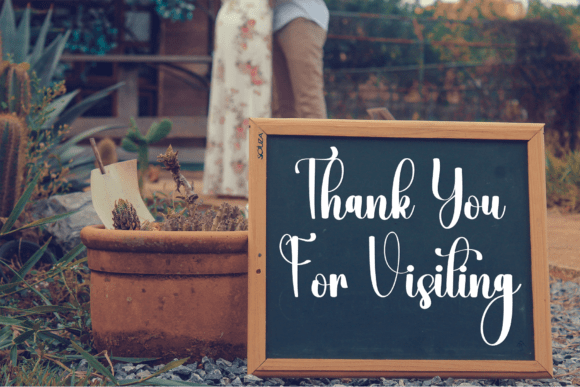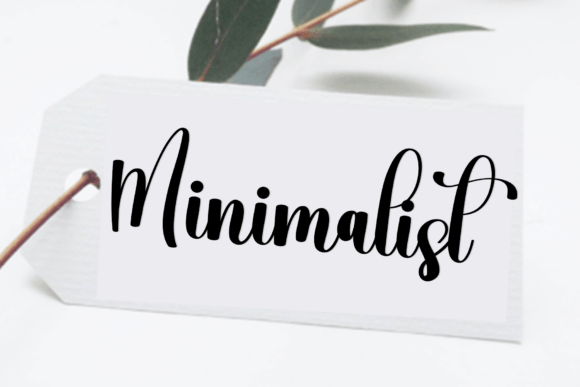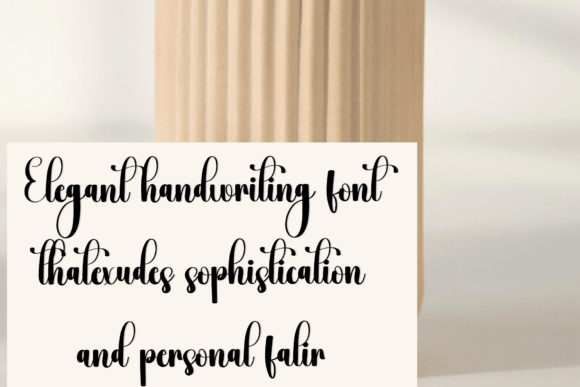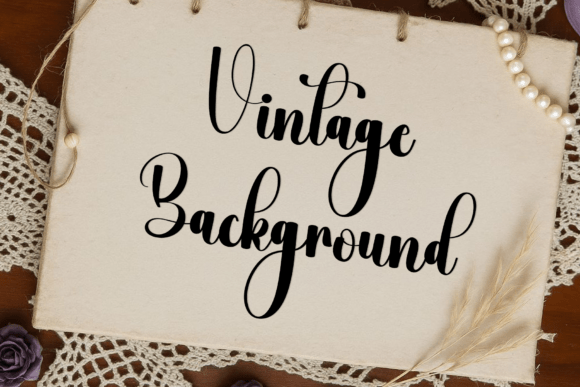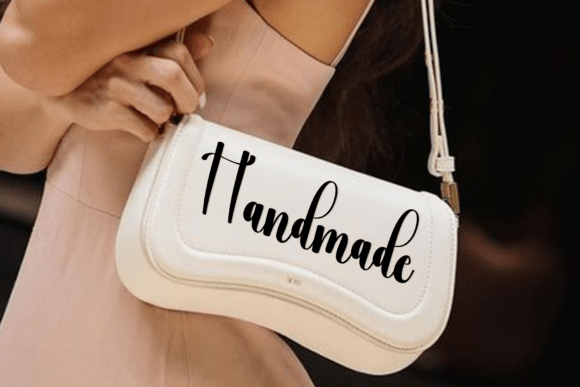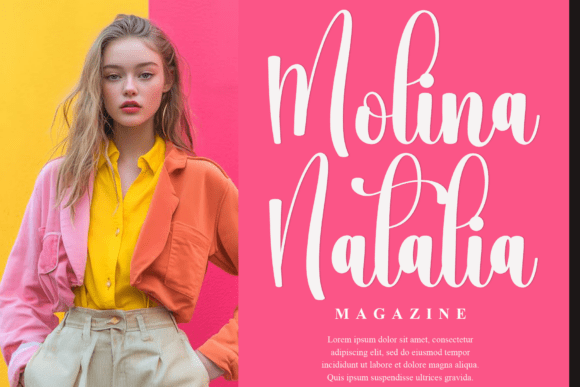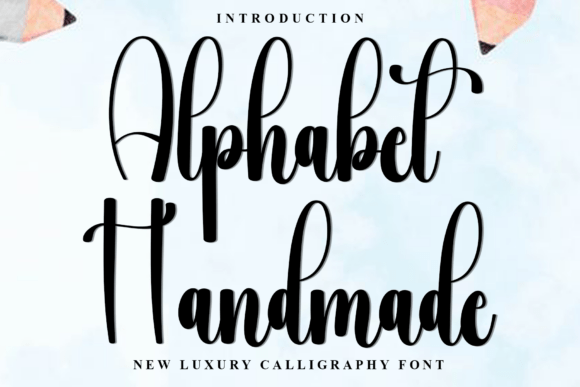
The Charm of Alphabet Handmade Font: A Designer’s Delight
I still remember the frustration of scrolling through font after font, searching for the perfect fit for a client’s luxury branding project. The brief was simple: create a sophisticated, high-end look that exuded elegance and refinement. But, as I sifted through my font library, I found myself stuck in a sea of sans-serifs and digitized serif fonts. That’s when I stumbled upon Alphabet Handmade font – a game-changer in the world of typography.
What Makes Alphabet Handmade Font So Special?
Alphabet Handmade font is a “new luxury calligraphy” font that celebrates the beauty of imperfection. Each letterform is carefully crafted to resemble hand-inked characters, complete with subtle irregularities that give the text a sense of life and uniqueness. This font is perfect for designers who want to break away from the corporate look and inject a more artistic, bohemian spirit into their work.
The Benefits of Alphabet Handmade Font
• ✨ Unique, hand-crafted letterforms that add a touch of elegance to any design
• ✅ Perfect for luxury editorial work, independent film posters, and high-end fashion branding
• 💫 Works exceptionally well in high-contrast color palettes, such as black ink on cream paper
• 🎨 Can be paired with a stark, brutalist sans-serif for a contemporary edge
• ✨ The font’s unique character and charm, which add a touch of sophistication to any design
• ✅ The range of OpenType features, including glyphs and stylistic alternates, which offer endless creative possibilities
• 💫 The font’s versatility, which makes it suitable for a wide range of design applications
• ⚠️ Some users may find the font’s irregularities too pronounced, which can be distracting in certain contexts
• 🤔 The font may not be suitable for body text, as its unique character is best showcased in headlines or titles
The Backstory Behind Alphabet Handmade Font
According to the font’s creators, Alphabet Handmade font was inspired by the art of traditional calligraphy. The designers wanted to capture the essence of hand-inked characters, while still making the font suitable for modern design applications. The result is a font that feels both timeless and contemporary.
What is the best way to pair Alphabet Handmade font with other fonts? A stark, brutalist sans-serif font provides a beautiful contrast to Alphabet Handmade font’s elegant, script feel.
Can I use Alphabet Handmade font for body text? While Alphabet Handmade font is best suited for headlines or titles, it can be used for body text in certain contexts. However, its unique character may be distracting in longer blocks of text.
Is Alphabet Handmade font suitable for digital applications? Yes, Alphabet Handmade font is optimized for digital use and can be used in a variety of applications, including websites, social media, and email marketing.